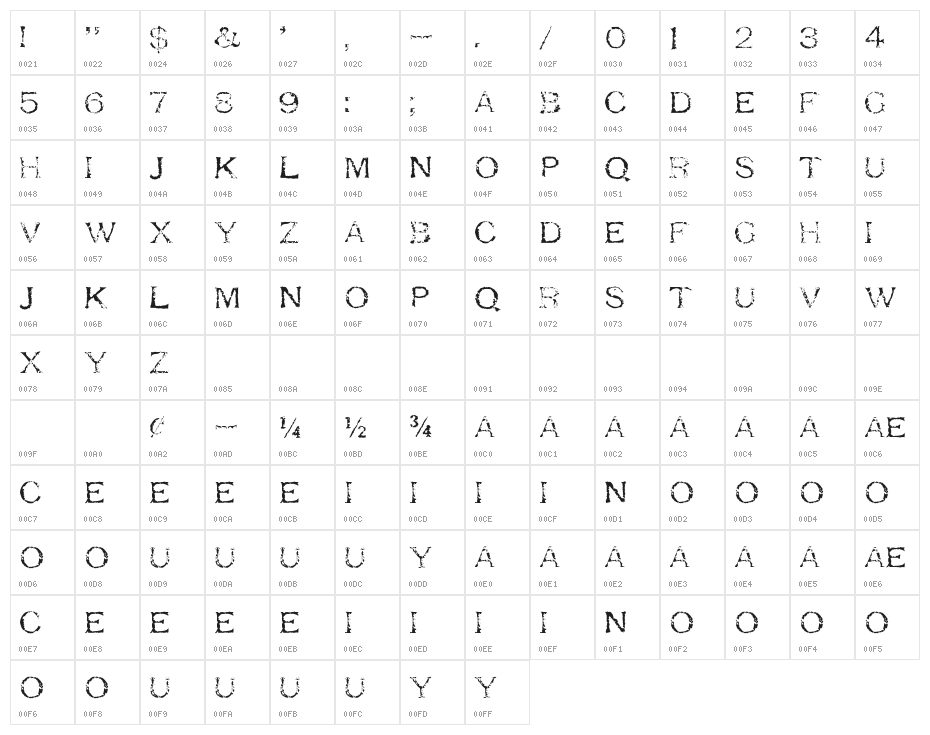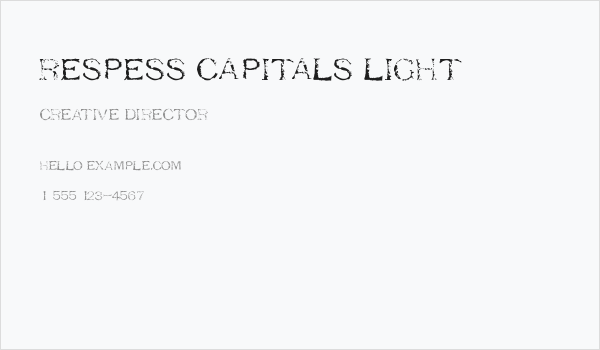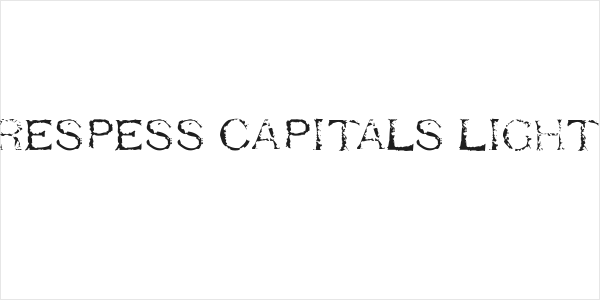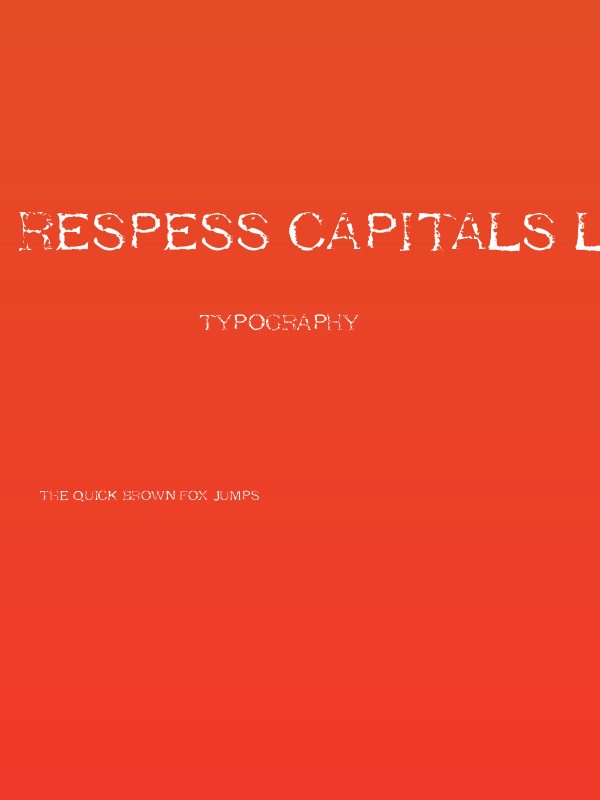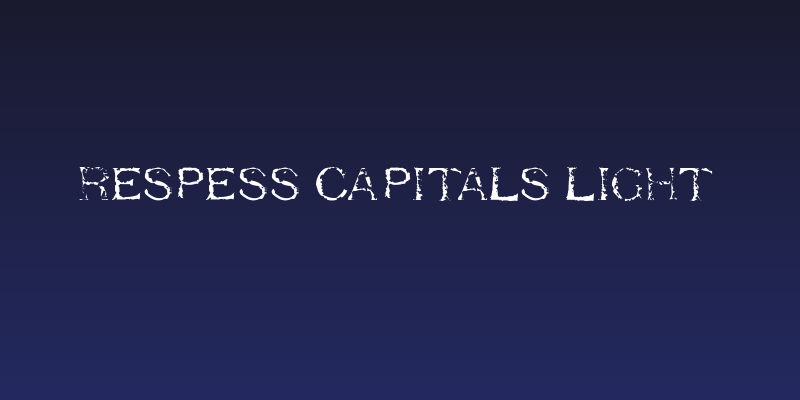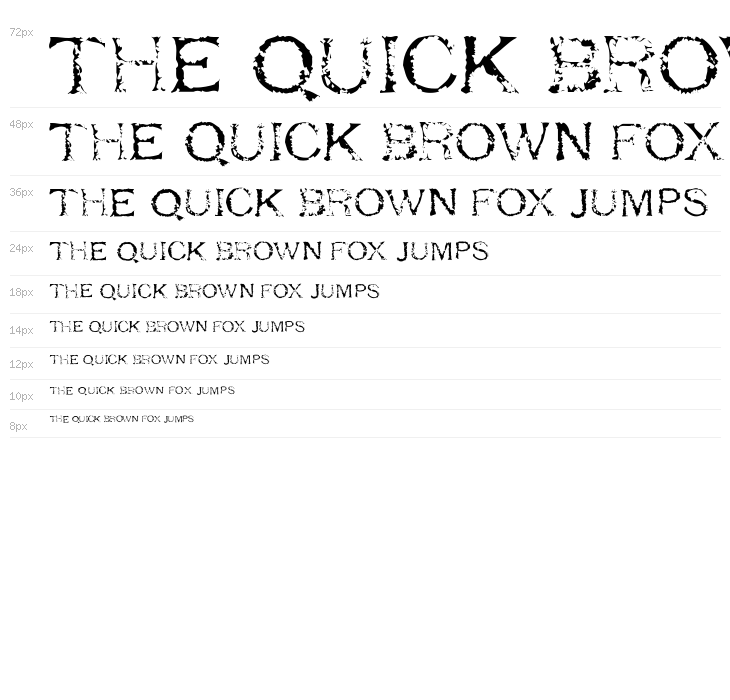
Respess Capitals Light Font
Respess Capitals Light Description
This font features a distressed, weathered appearance, giving it a unique and rugged character. The uppercase letters are bold and prominent, with a textured look that suggests wear and tear, making it ideal for designs that require a vintage or grunge aesthetic. The numbers and special characters maintain this distressed style, ensuring consistency across all elements. The font's irregular edges and rough texture add a dynamic and eye-catching element to any design project.
| Proposed Projects | Ideal for posters, album covers, branding for outdoor or adventure-themed products, and any design requiring a vintage or grunge aesthetic. |